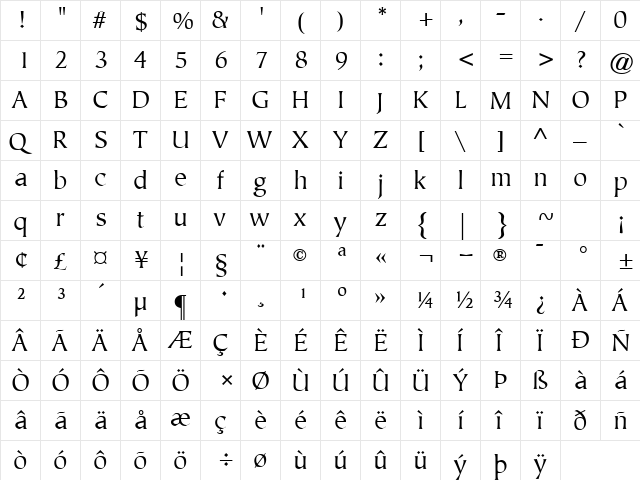
JusticeSystem Regular
Design Context for JusticeSystem Typeface
JusticeSystem is a composed and adaptable typeface that performs quietly and consistently across a wide range of design contexts.